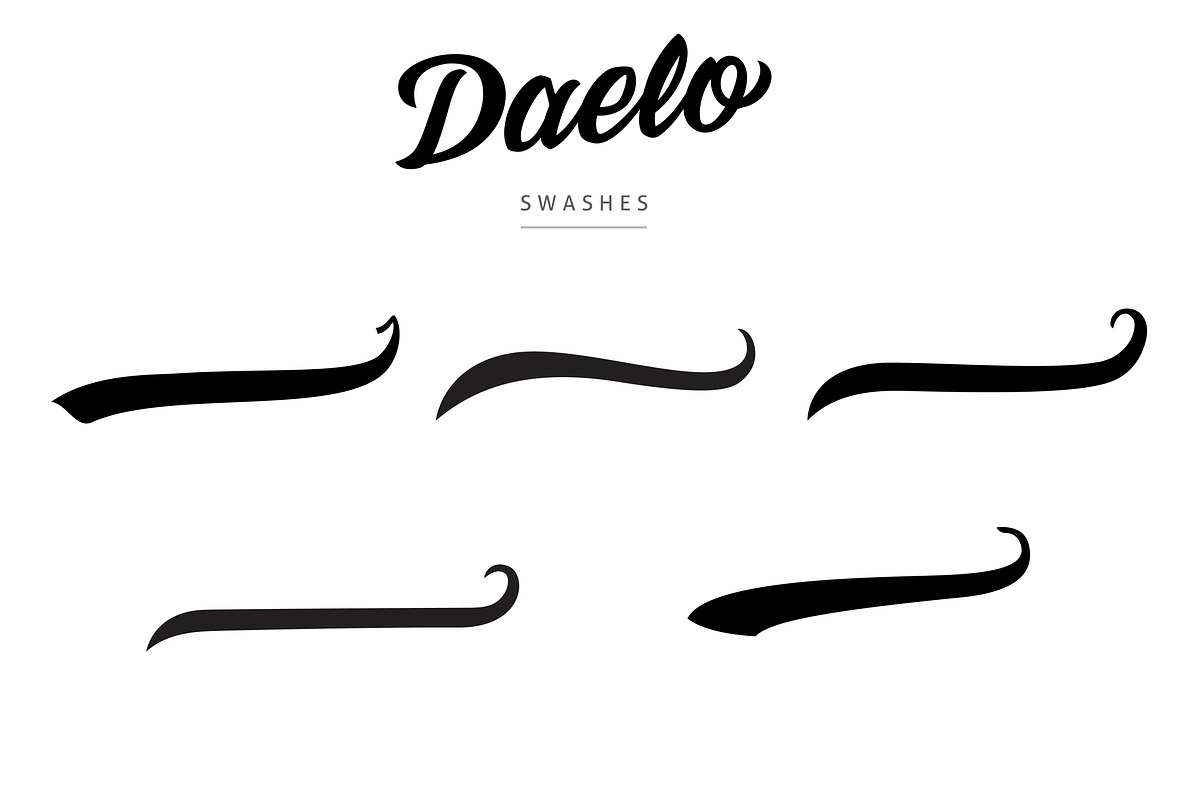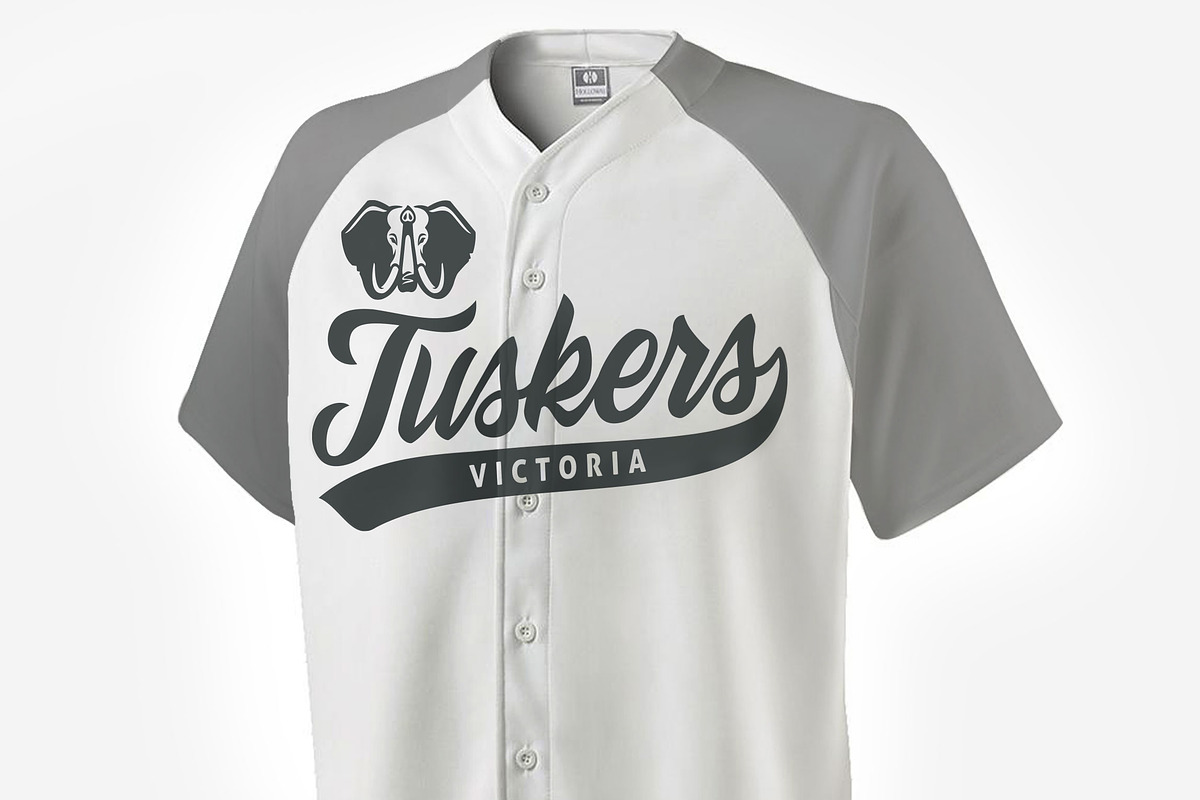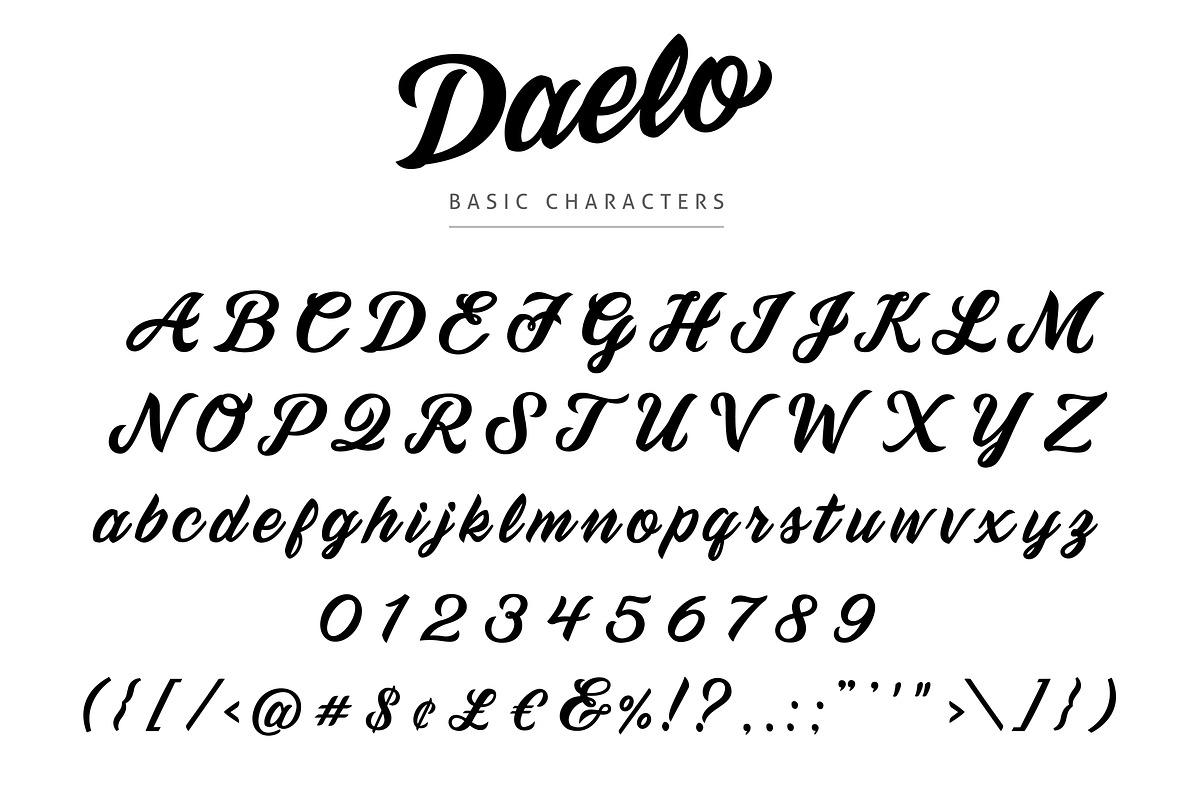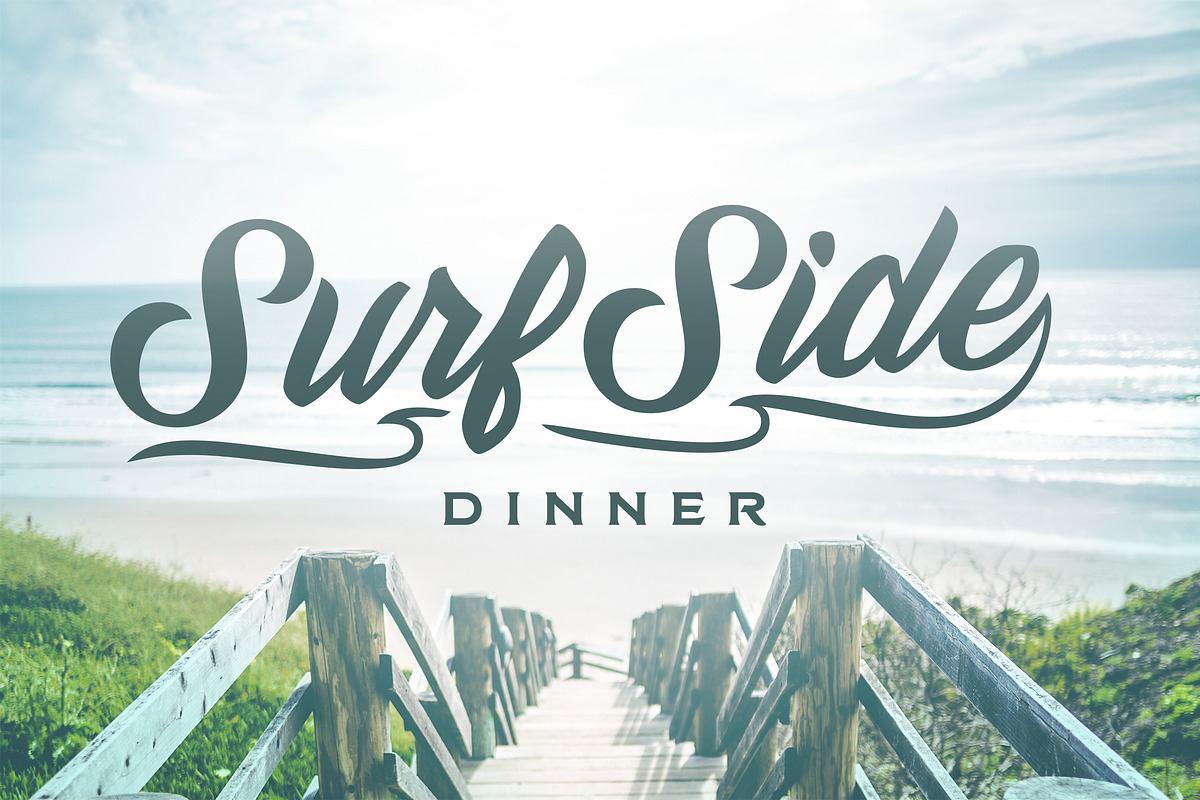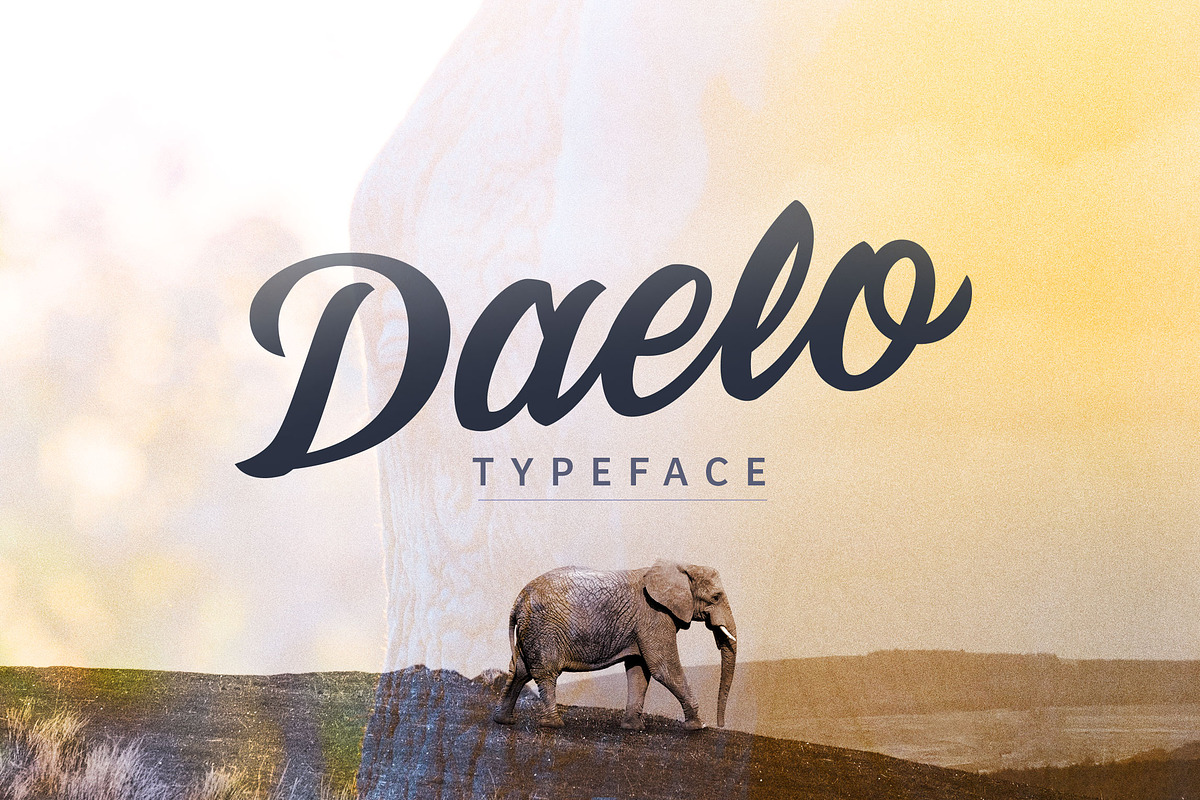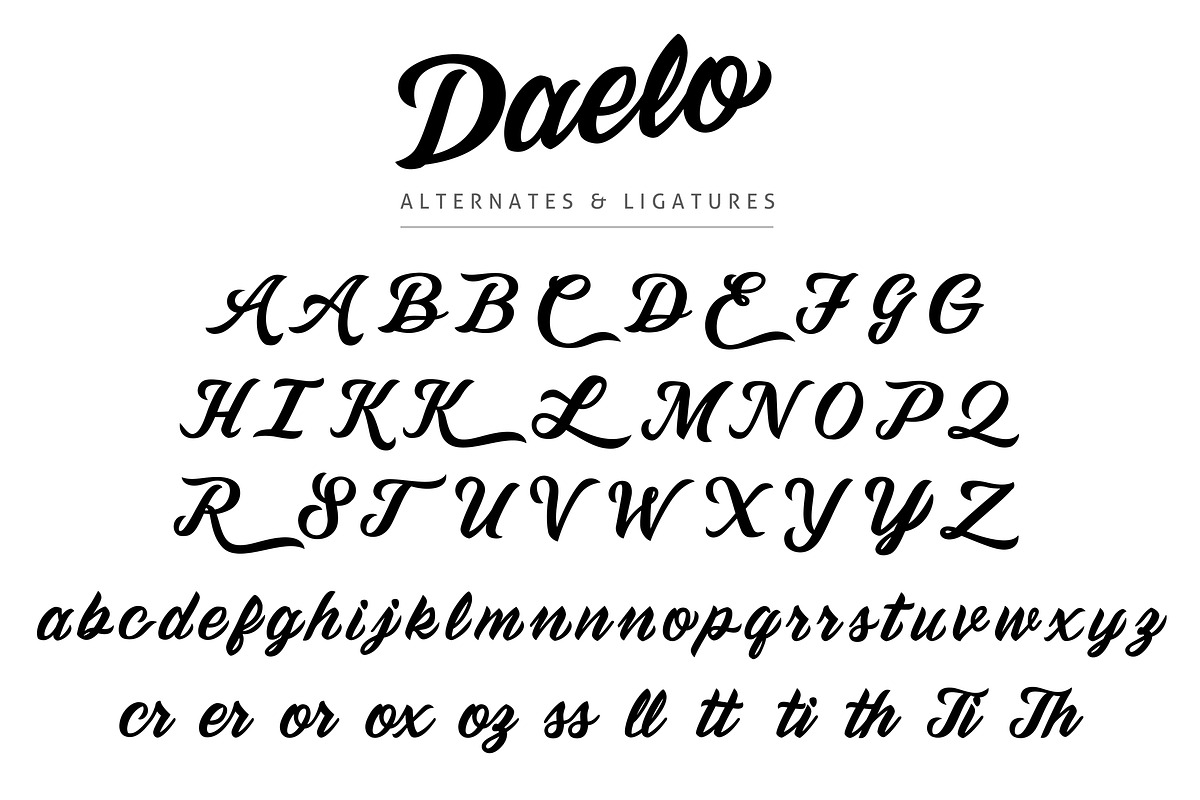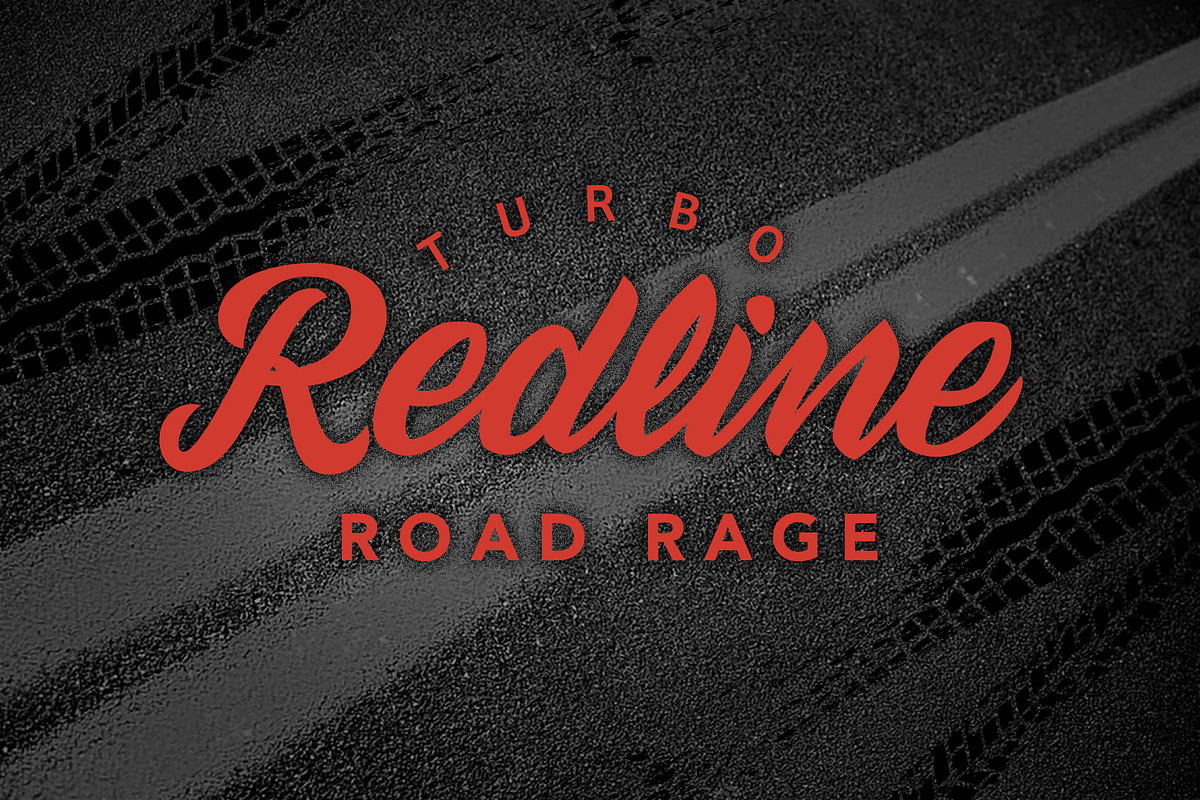
Daelo Script Typeface
Daelo is a custom lettered bold script display font. With a combination of soft and slightly crips edges it can meet a diverse range of stylistic needs. Daelo has 71 alternates for both upper and lower case letters including ending tails. Also included are ligatures and swashes so you can build custom words, headlines, and logos.
- Daelo has 71 alternates for both upper and lower case letters including ending tails.
- Also included are ligatures and swashes so you can build custom words, headlines, and logos.